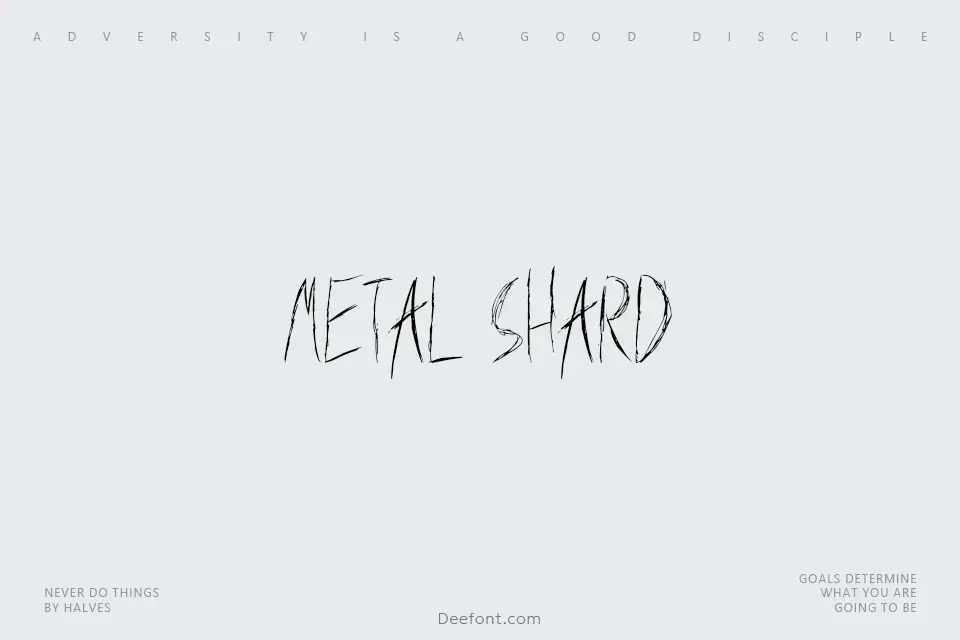
Metal Shard Font
Metal Shard is a fierce, jagged display font designed by Xerographer Fonts that mimics the chaos of shattered steel. Its sharp, aggressive strokes and distressed texture make it perfect for dark, high-impact designs. This typeface excels in heavy metal band logos, horror movie posters, and grunge-themed creative projects, delivering a raw, industrial aesthetic that commands immediate attention.****Donate $15-$25 For Personal Use!***Contact FOR ANY Commercial Use / Licensing!****PayPal / Contact / Donate / Inquiries: maxinfeld@gmail.coms